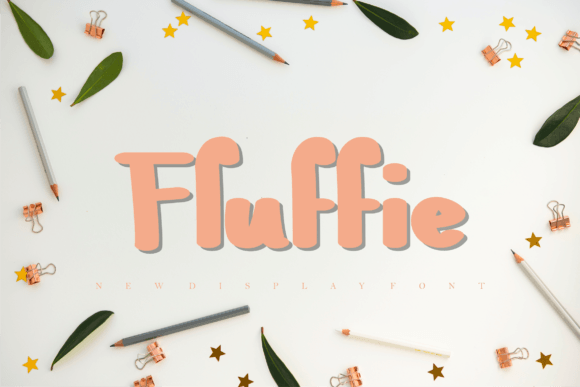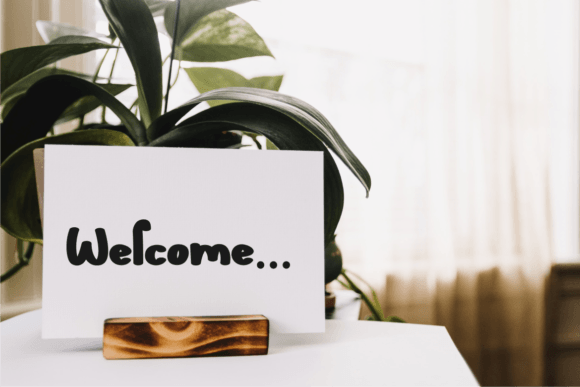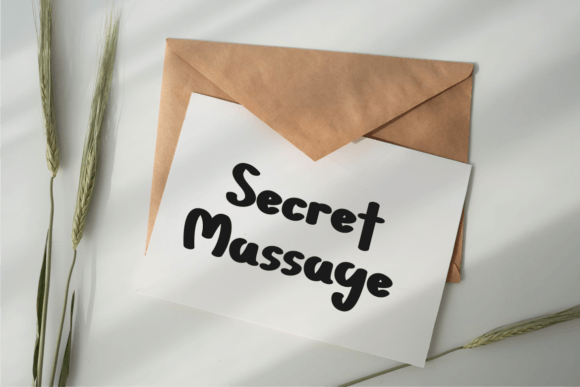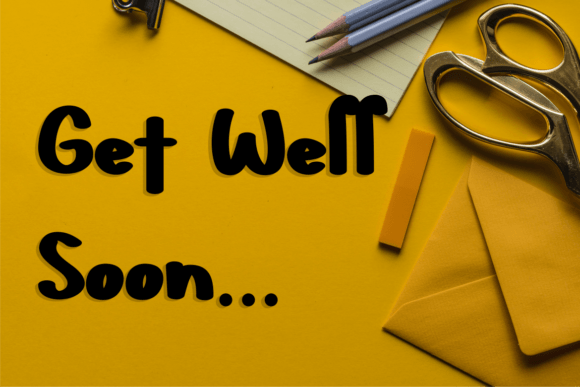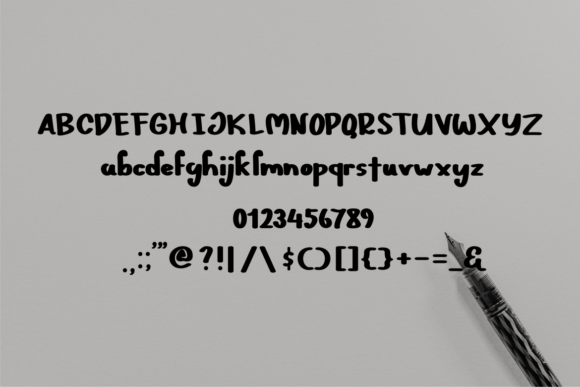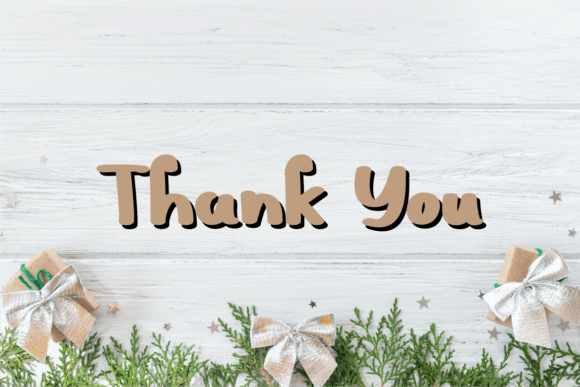
The Birth of a New Font: Unveiling Fluffie Font
Do you remember that moment when you stumbled upon the perfect font, and it immediately sparked a wave of creativity? The way it flowed, the way it felt, and the way it made you want to create something amazing? That’s what we aimed to achieve with our latest font release – Fluffie Font.
Fluffie Font is a modern display font that exudes boldness and authenticity. Whether you’re working on a branding project, designing a logo, or printing t-shirts for a gaming team, Fluffie Font is the perfect companion to elevate your work. Its versatility shines in a wide range of contexts, making it an invaluable asset for designers looking to add a unique touch to their projects.
Key Features of Fluffie Font
- Unique Characteristics: Fluffie Font is known for its playful and whimsical design, featuring rounded edges and soft curves that give it a childlike charm.
Review of Fluffie Font
Overall, I’d say that Fluffie Font is a cute and playful addition to any design project. Here are some things that work well: ✨
- It’s perfect for creating a child-friendly or whimsical atmosphere in designs.
- The font is highly legible, even at smaller font sizes.
- It’s a great option for designers who want to add a touch of personality to their work.
However, there are a few limitations that I’ve noticed: ⚠️
- The font can feel a bit too cursive or scripty for some designs, especially those that require a more serious tone.
- It may not be the best choice for body text, as it can be a bit too ornate for large blocks of text.
Overall, I think Fluffie Font is a great addition to any designer’s toolkit. It’s perfect for adding a touch of whimsy to a design, and it’s easy to use. However, it may not be the best choice for every project. With a bit of careful consideration, designers can use Fluffie Font to create truly unique and engaging designs.
The Fluffie Font is perfect for creating whimsical and playful designs, such as:
- Baby shower invitations and decorations
- Graphic novels and comic books
Alternatives to Fluffie Font for Designers
Great Vibes is a modern, handwritten script font. It’s ideal for use in titles, headings, and quotes, adding a touch of elegance and sophistication to any design. Great Vibes is a more refined and polished alternative to Fluffie Font, making it suitable for high-end branding and advertising materials.
Comparison: Great Vibes has a more refined and elegant feel compared to the playful and whimsical nature of Fluffie Font.
Lobster is a casual, cursive script font. It’s perfect for use in social media graphics, blog posts, and other informal content where a relaxed tone is desired. Lobster is a more laid-back and casual alternative to Fluffie Font, making it suitable for younger audiences and creative projects.
Comparison: Lobster has a more casual and relaxed feel compared to the playful and whimsical nature of Fluffie Font.